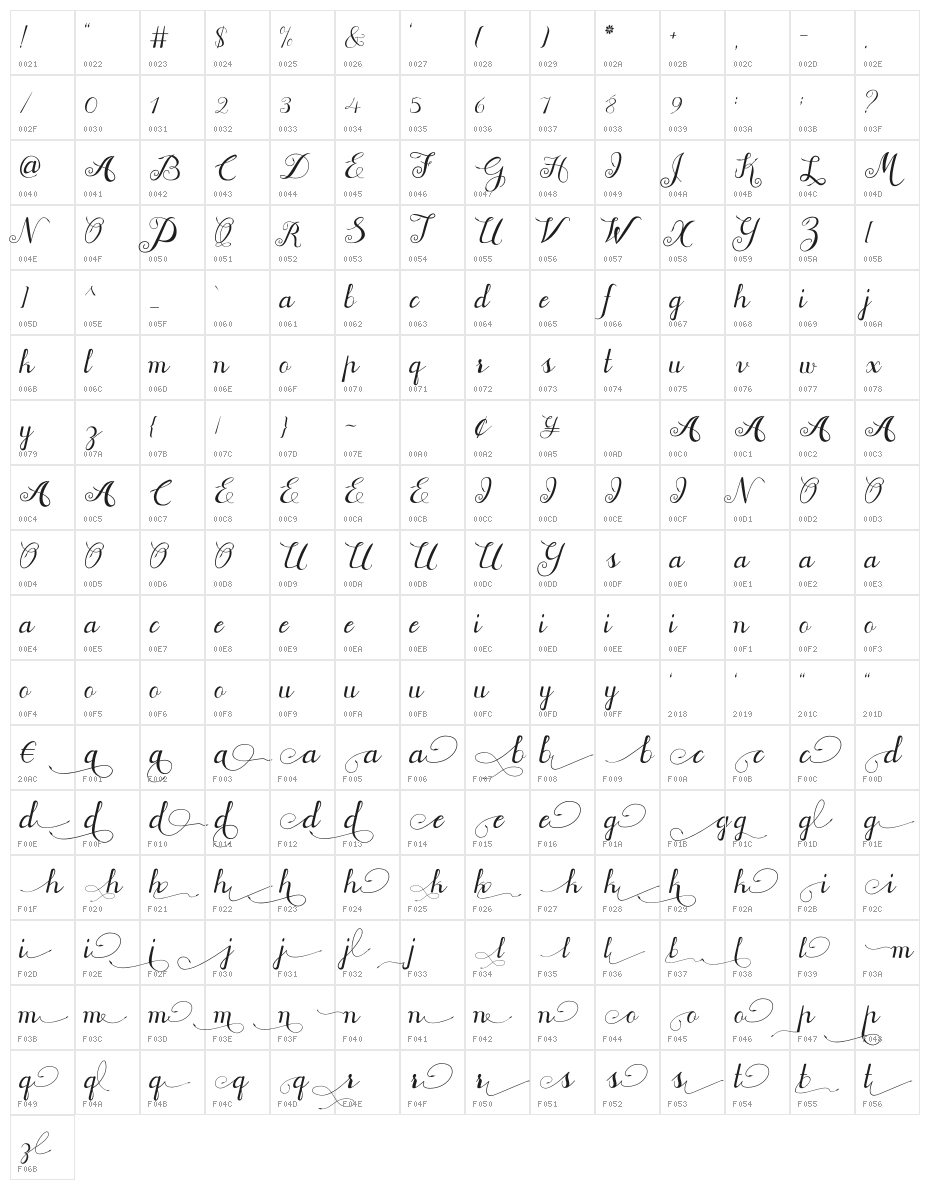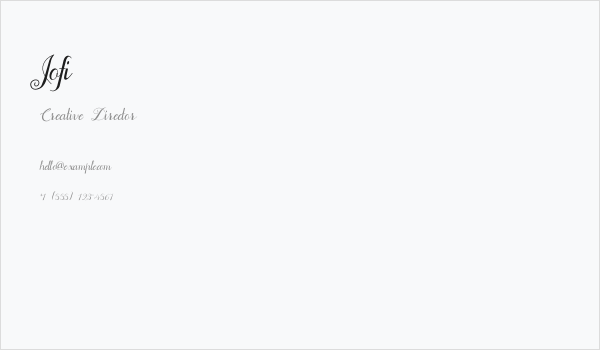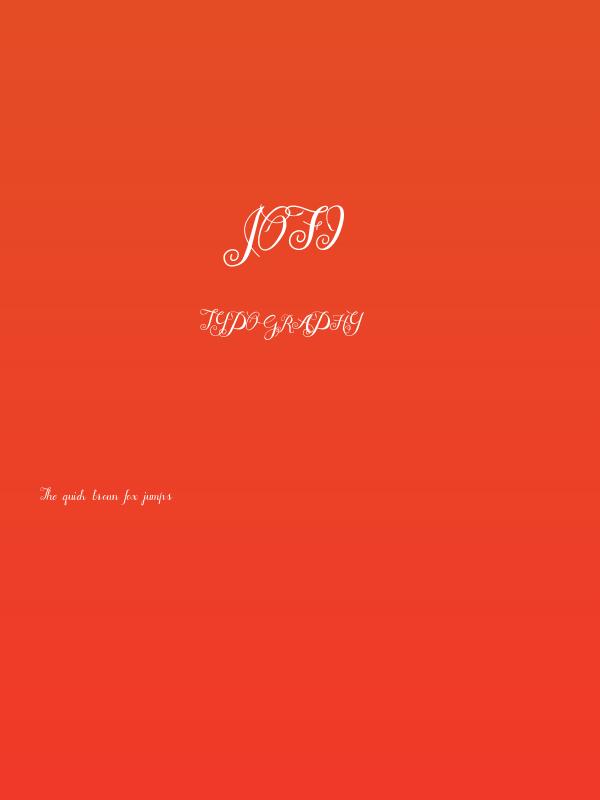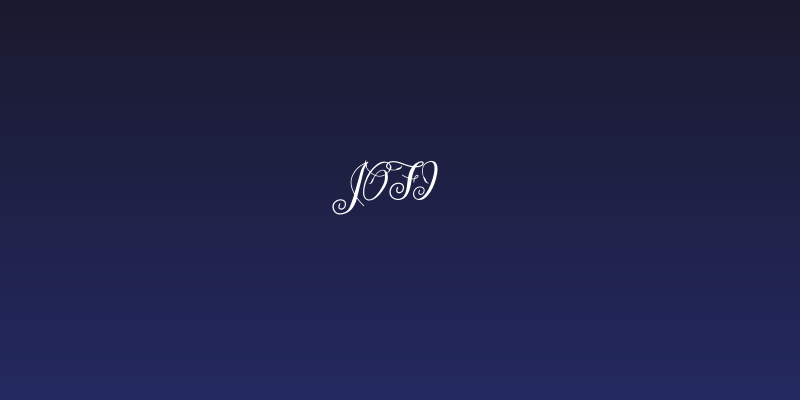
Jofi Font
Jofi Description
This font exudes elegance and sophistication with its intricate and flowing script style. The uppercase letters are adorned with elaborate swirls and flourishes, giving them a decorative and ornate appearance. The lowercase letters maintain a more restrained yet still elegant form, providing a nice contrast to the more elaborate capitals. The numerals are consistent with the overall style, featuring subtle curves and a graceful presence. Special characters are thoughtfully designed to match the font's aesthetic, making it suitable for formal invitations, branding, and decorative purposes.
| Proposed Projects | Ideal for wedding invitations, luxury branding, greeting cards, and decorative headings. |